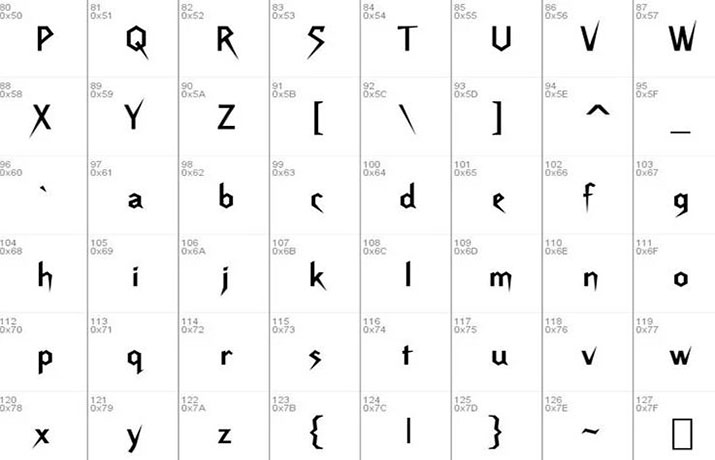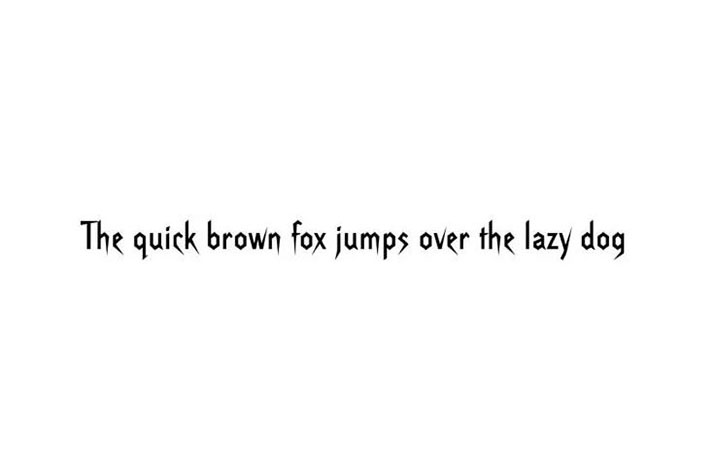
Raven Evermore BT Font is a unique display typeface that has sharp and scary letterforms. It was designed by Holly Goldsmith and published by Bitstream.
This font family letter has a unique personality that is pointed and triangular and many of the characters are based on geometric shapes like circles and squares.
Its pointed corners and geometric shape give it a unique and eye-catching look that makes it ideal for horror posters, banners, headers, titles, movie posters, logos, and more.
“Raven Evermore BT typeface has a single weight along with True Type features. This style contains 261 glyphs, numbers, symbols, punctuation marks, and 3670 binary stored kerning pairs. Moreover, it also supports 71 global languages.”
| Style: | Display, Horror, Fancy |
- You can quickly create covers, posters, movie posters, product designs, banners, signs, game graphics, packaging designs, horror quotes, game graphics, game development, watermarks, logos, card printing, game titles, product design, t-shirt printing, and more because of its distinctive and eye-catching appearance.
- You can use this font with other horror fonts which including Butcherman Font by T. Typomondo and Death Note Font by Japanese Manga